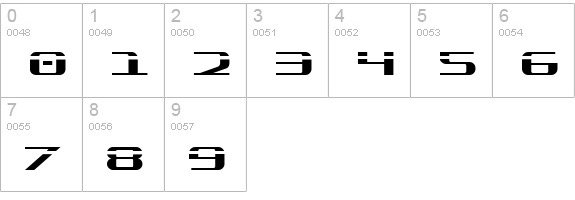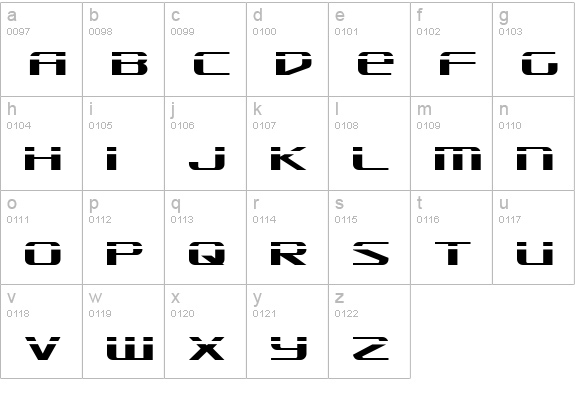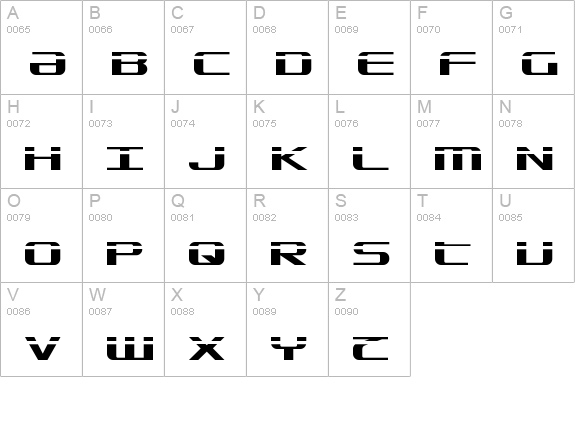
Introducing the stunning SDF Laser font, a bold and futuristic typeface that will make your designs truly stand out. This modern font features sleek lines and sharp edges, giving it a cutting-edge look that is perfect for tech-related projects, posters, branding, and more. What's even better is that SDF Laser is completely free to download at FontsMarket.com! This means you can easily add this striking font to your collection without any cost. Don't miss out on the opportunity to elevate your designs with the dynamic and eye-catching SDF Laser font. Download it now and take your creative projects to the next level!